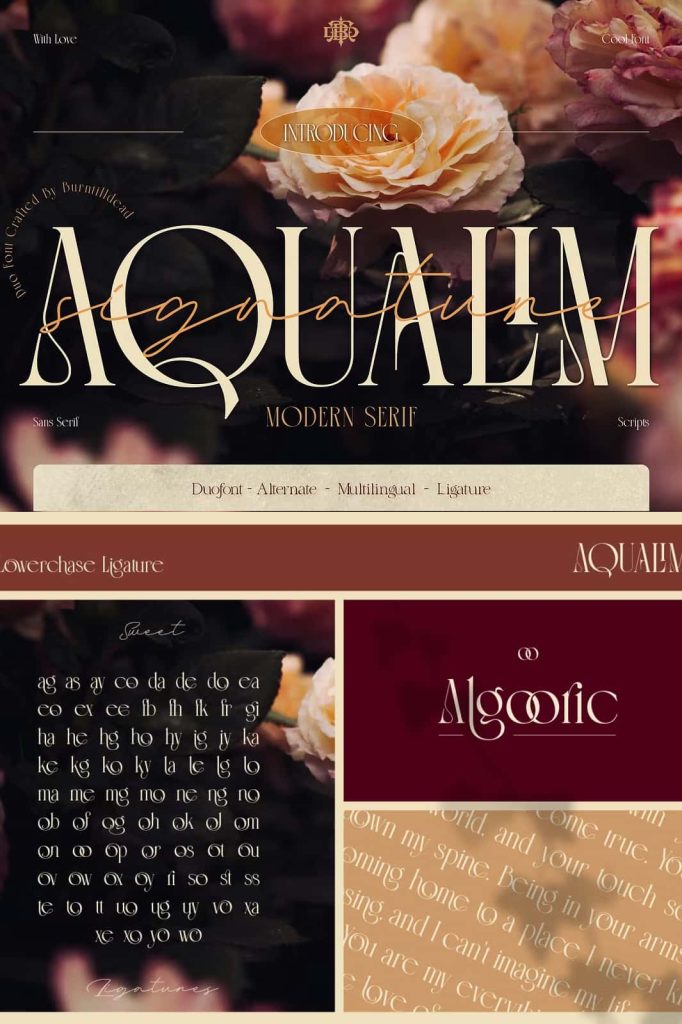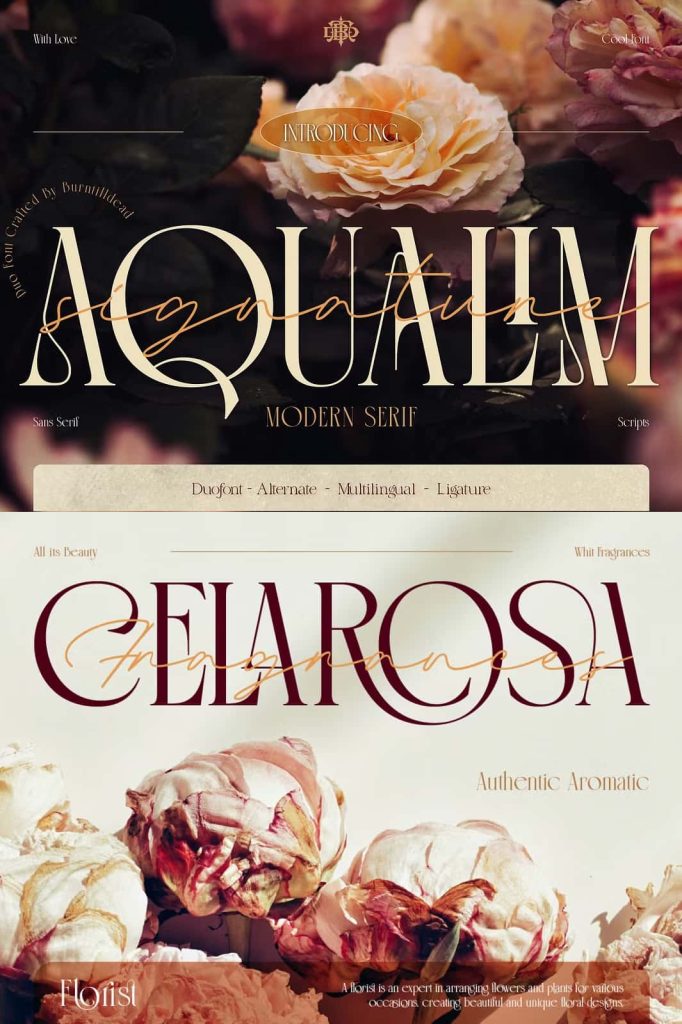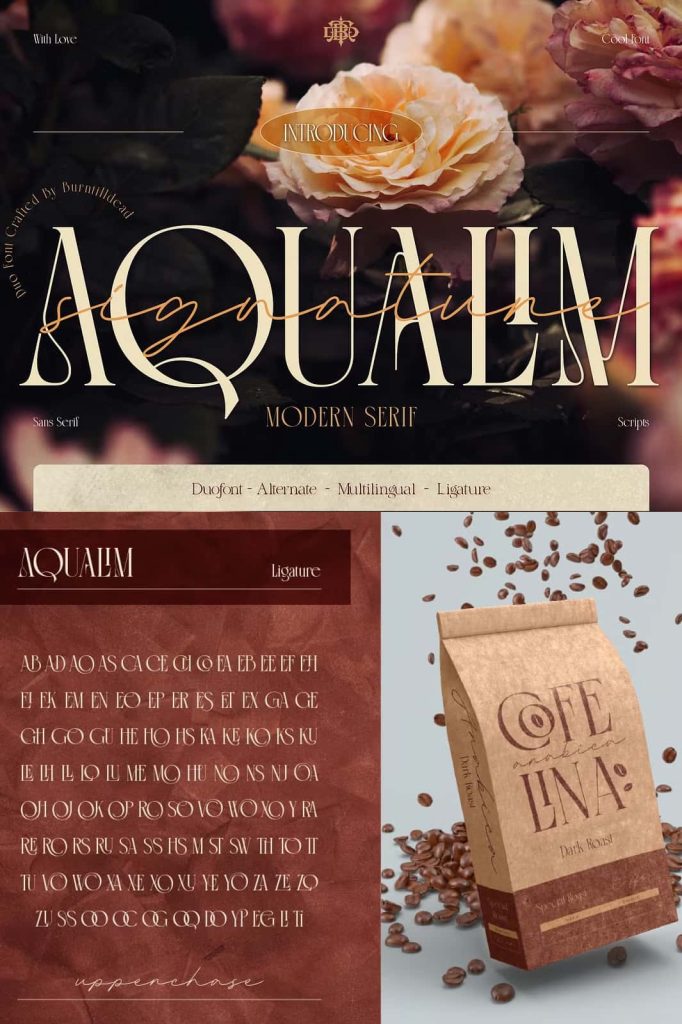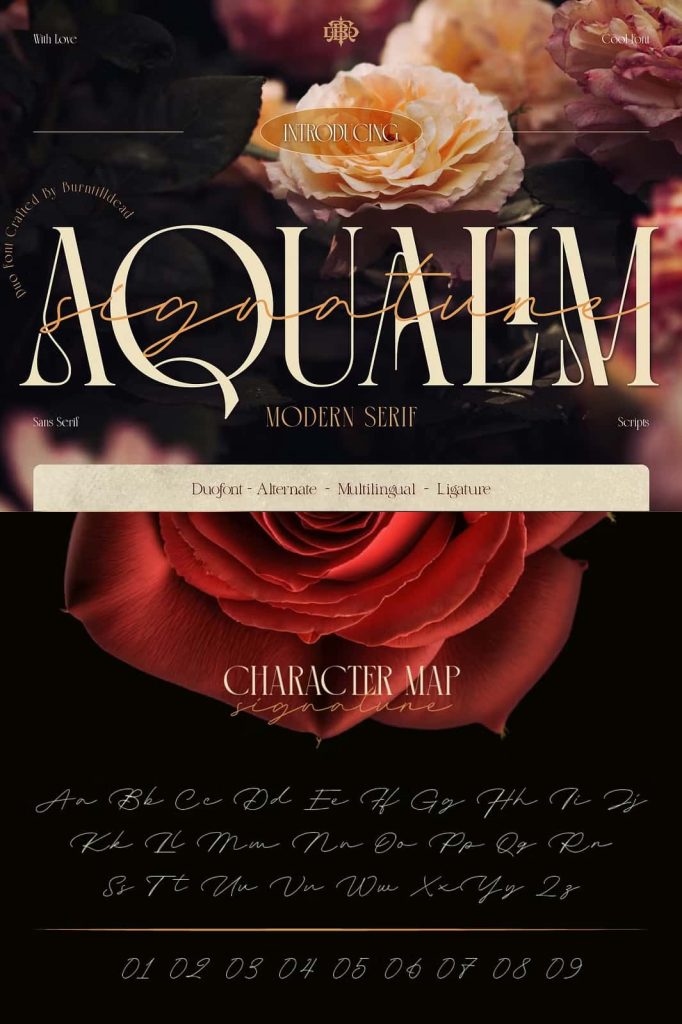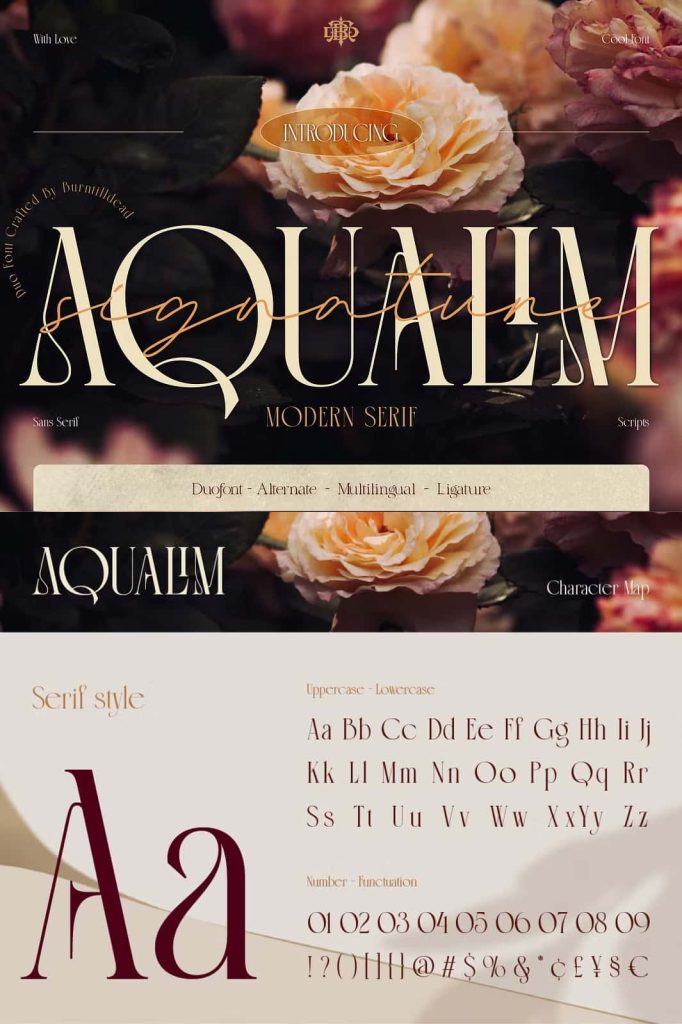
Aqualim Signature, when classic of serif meets the elegance of script. This duo font bring the aesthetic of classy and luxury look so its perfectly suit for headline